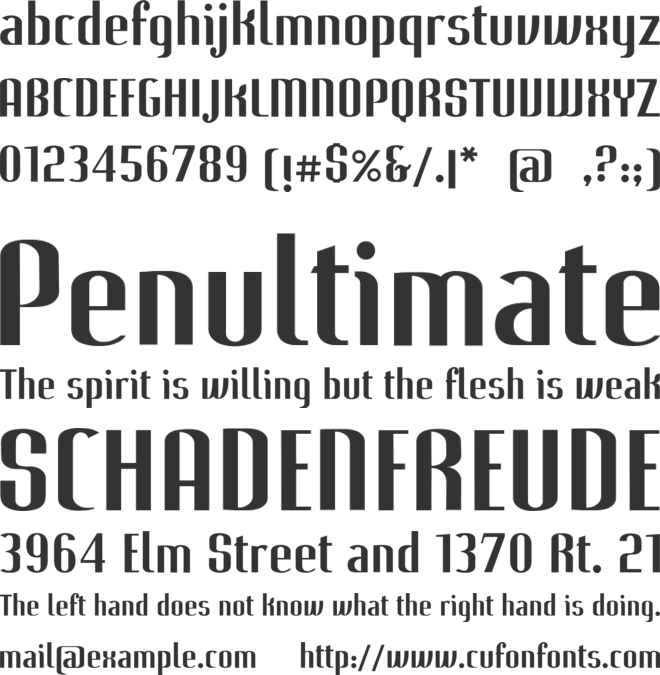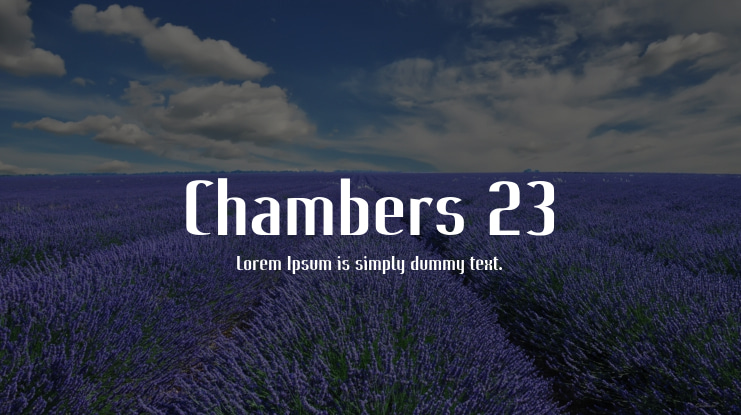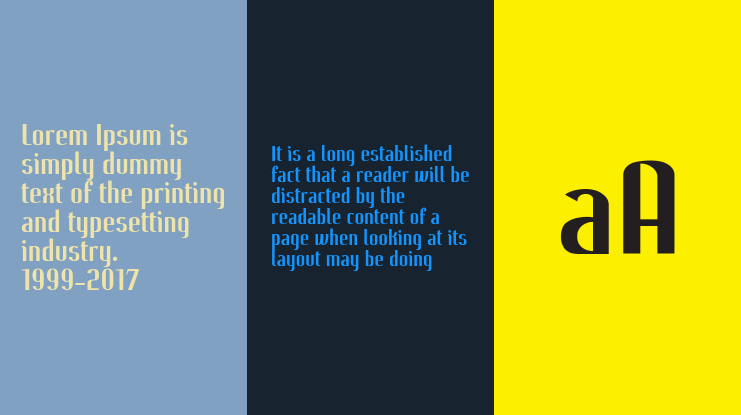
Chambers 23 Font Family
Alfred Trujillo
Chambers 23 is a striking typeface designed for large-format signage, blending modern aesthetics with a nod to classic typography. Available in both regular and italic styles, it captures the essence of timeless design while ensuring high legibility from a distance. Its elegant curves and strong forms make it perfect for impactful displays, embodying a harmonious balance between tradition and contemporary flair.